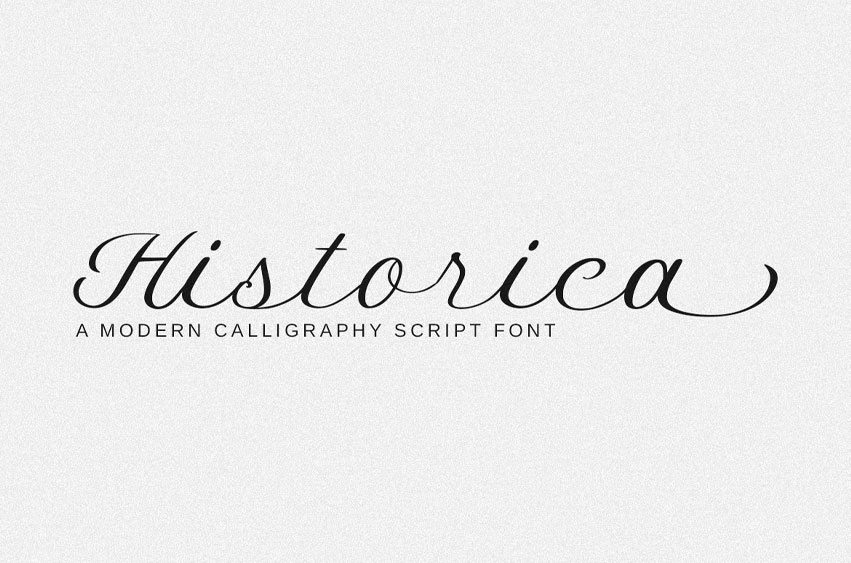
Historica Font is a modern calligraphy script typeface crafted to bring elegance, warmth, and sophistication to every project. Its flowing characters and refined letterforms make it an ideal choice for invitations, branding, packaging, and editorial use. Historica captures a sense of romance and timeless beauty while maintaining a contemporary feel, making it versatile for both formal and creative purposes. Perfectly balanced between grace and readability, this typeface adds an artistic touch that transforms ordinary text into a captivating visual experience.
- Ligature & Alternate Character
- Unique Hand-Drawn Style